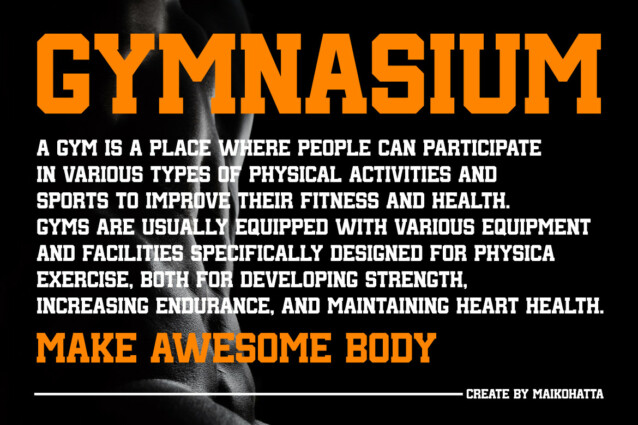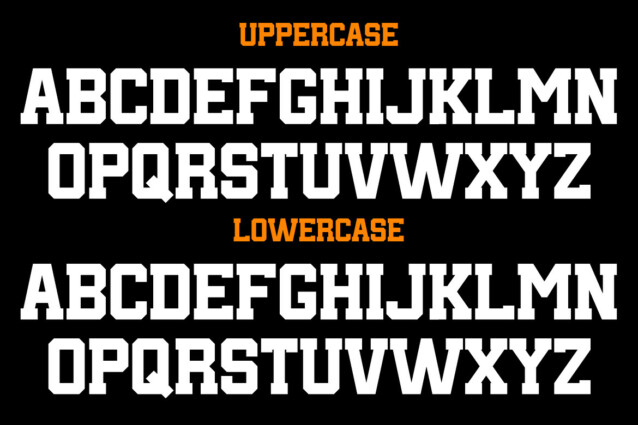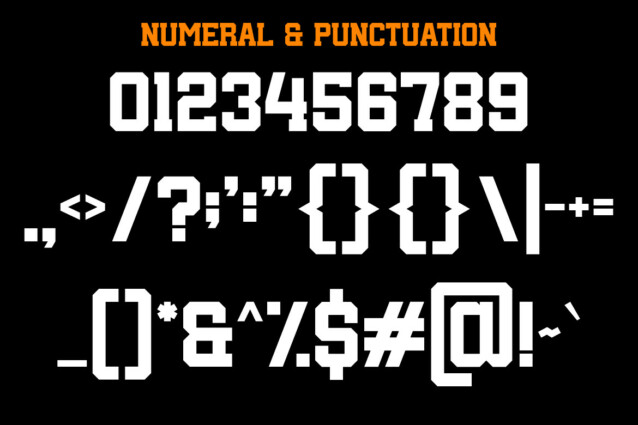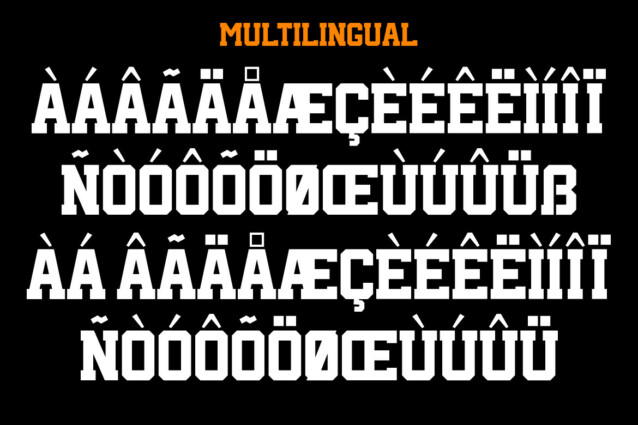
Desporm Font
Desporm Font – This font was designed to reflect the dynamic spirit, energy and toughness often associated with physical activity and sports. This font can be used in brand identities of sports teams, sports companies, and major sporting events. This font design can contribute to creating a strong visual appeal, as well as building an emotional connection with the audience associated with a spirit of competition and achievement.
* Uppercase
* Lowercase
* Multilingual